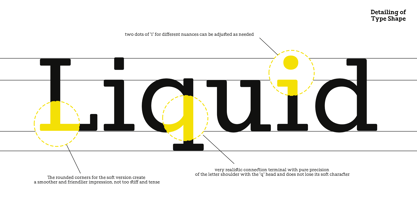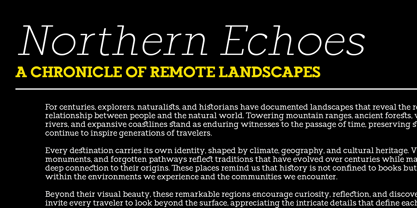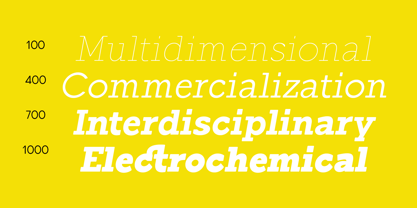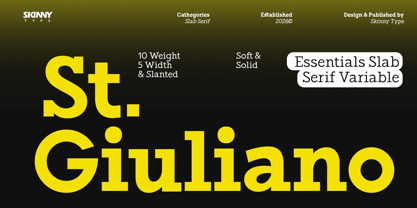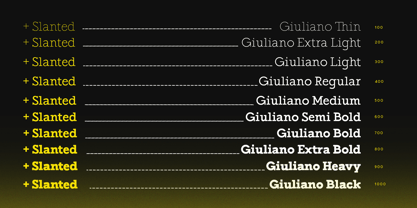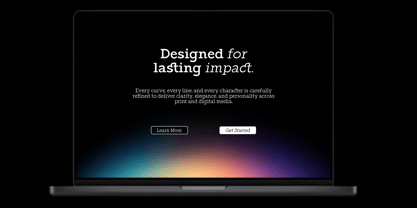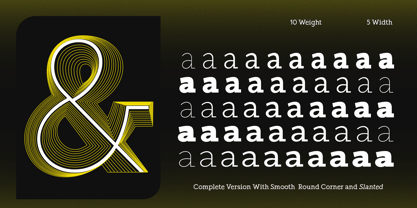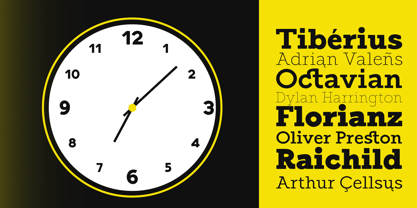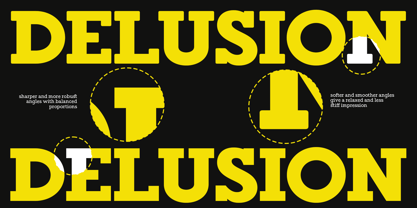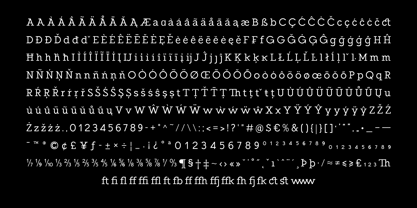
ST Giuliano Slab
The ST Giuliano Slab Font Family was designed by Muhajir and published by Skinny Type. ST Giuliano Slab contains 143 styles and family package options. More about this family
Giuliano is a contemporary slab serif variable typeface that merges structural precision with approachable warmth. Its expansive weight and width axes, complemented by slanted styles, provide exceptional typographic flexibility while preserving a consistent visual identity across diverse design applications. The design is defined by substantial slab serifs, generous proportions, and softly rounded terminals that temper its geometric construction, resulting in a harmonious balance between authority and accessibility.
The letterforms exhibit a deliberate emphasis on stability and rhythm, featuring broad counters, moderate stroke contrast, and carefully calibrated spacing that enhance legibility at both display and intermediate text sizes. The rounded transitions at key junctions reduce visual rigidity, creating a refined yet confident aesthetic suitable for editorial layouts, branding systems, packaging, digital interfaces, and corporate communications.
As a variable font family, Giuliano enables seamless interpolation across multiple typographic parameters, empowering designers to fine-tune weight, width, and inclination without compromising consistency or performance. This adaptability makes it an effective solution for responsive typography, where visual hierarchy and spatial efficiency are essential across both print and digital environments.
Overall, Giuliano embodies a modern interpretation of the slab serif tradition—combining robust structural characteristics with subtle humanistic refinement to deliver a versatile type system that is expressive, highly functional, and engineered for contemporary visual communication.